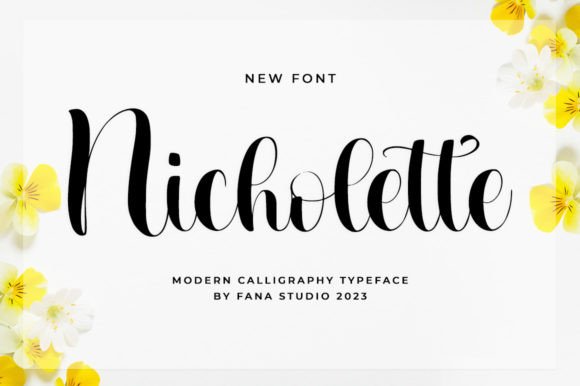
Witness the allure of Nicholette Font, a symphony of elegance and sophistication, meticulously crafted to leave an indelible mark on your creative endeavors. This exquisite script font, a brainchild of fanastudio, embodies the essence of timeless beauty, effortlessly elevating your designs to new heights of artistry.
Immerse yourself in the world of Nicholette Font, where letters dance with grace and charm, entwined in a harmonious embrace. Each stroke exudes a touch of elegance, reminiscent of a calligrapher's masterful hand, lending an air of refinement to your projects.
Unleash your creativity with Nicholette Font, the perfect choice for crafting stunning invitation cards that capture the essence of your special moments. Its delicate lines and flowing curves add a touch of romance and allure, ensuring that your invitations leave a lasting impression on your guests.
Design with Nicholette Font and transport your audience to a world of enchantment. Its versatility knows no bounds, lending itself effortlessly to a myriad of projects, from elegant wedding invitations to whimsical birthday cards, captivating social media graphics to alluring branding materials.
With Nicholette Font, the possibilities are endless. Embark on a creative journey where your imagination takes center stage, and witness the transformation of ordinary designs into masterpieces that captivate and inspire.
Indulge in the beauty of Nicholette Font today and elevate your designs to new heights of excellence. Let its charm ignite your creativity, leaving an enduring legacy of elegance and sophistication in its wake.